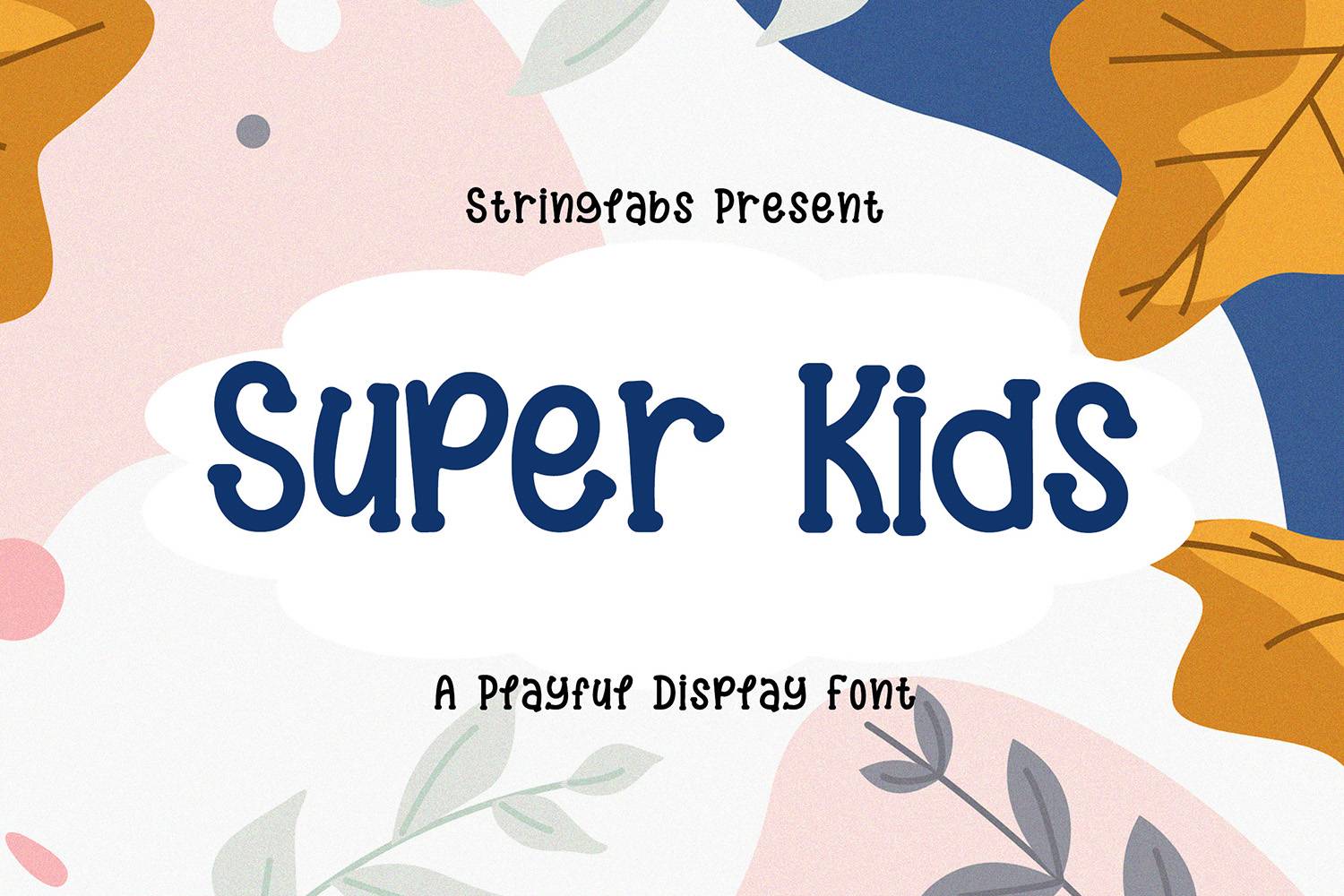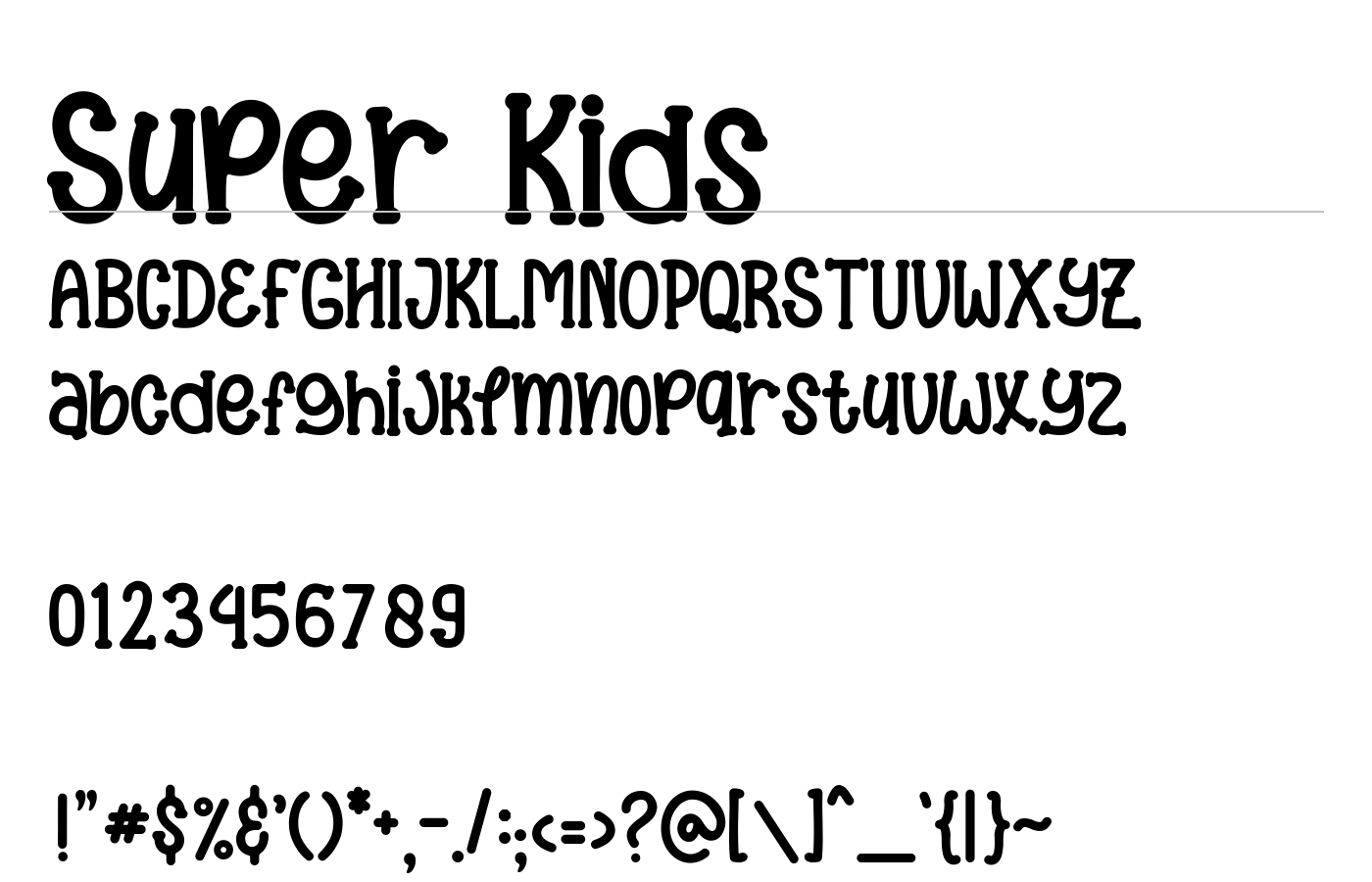
Super Kids is a playful, rounded sans serif font with a friendly and whimsical personality, making it perfect for children’s books, educational materials, and fun branding. Its bold weight, tall x-height, and unique quirky letter shapes create an engaging and approachable feel that stands out in headlines and playful designs. This font works well where a lighthearted, joyful tone is desired to capture the imagination and attention of young audiences.
Super Kids Font
About Super Kids Font